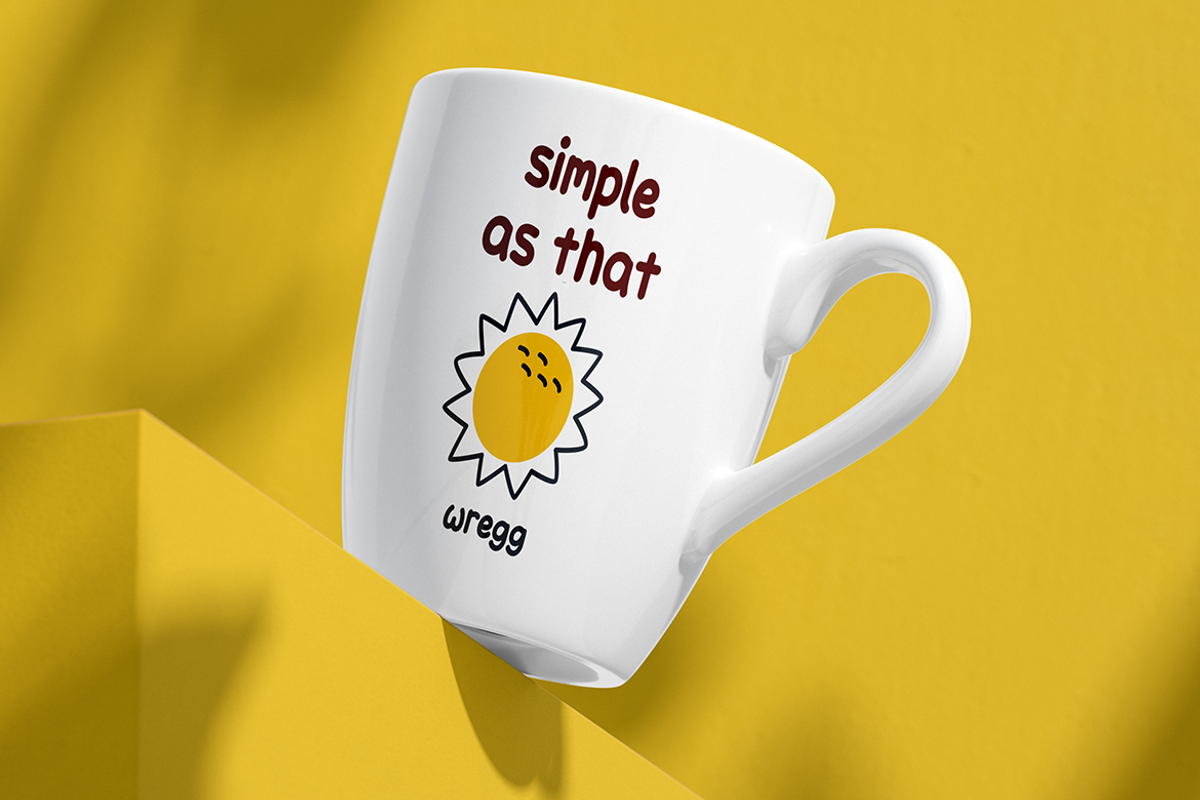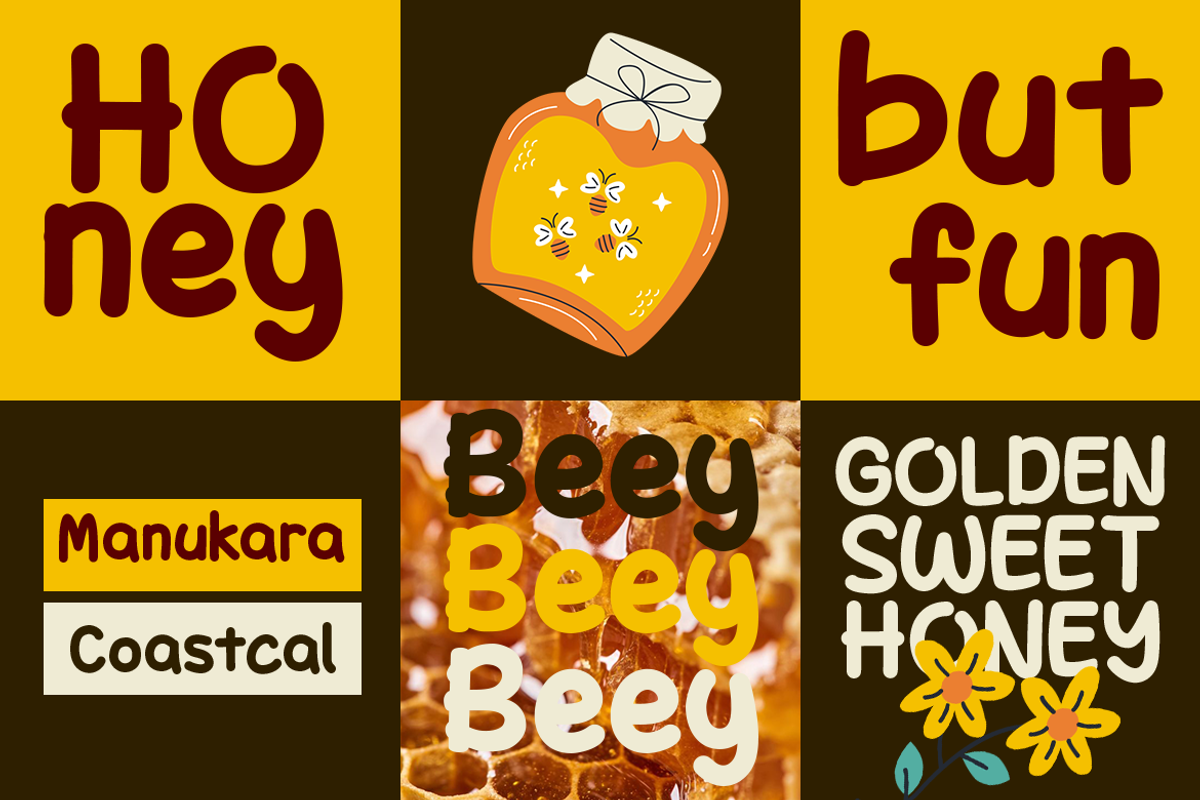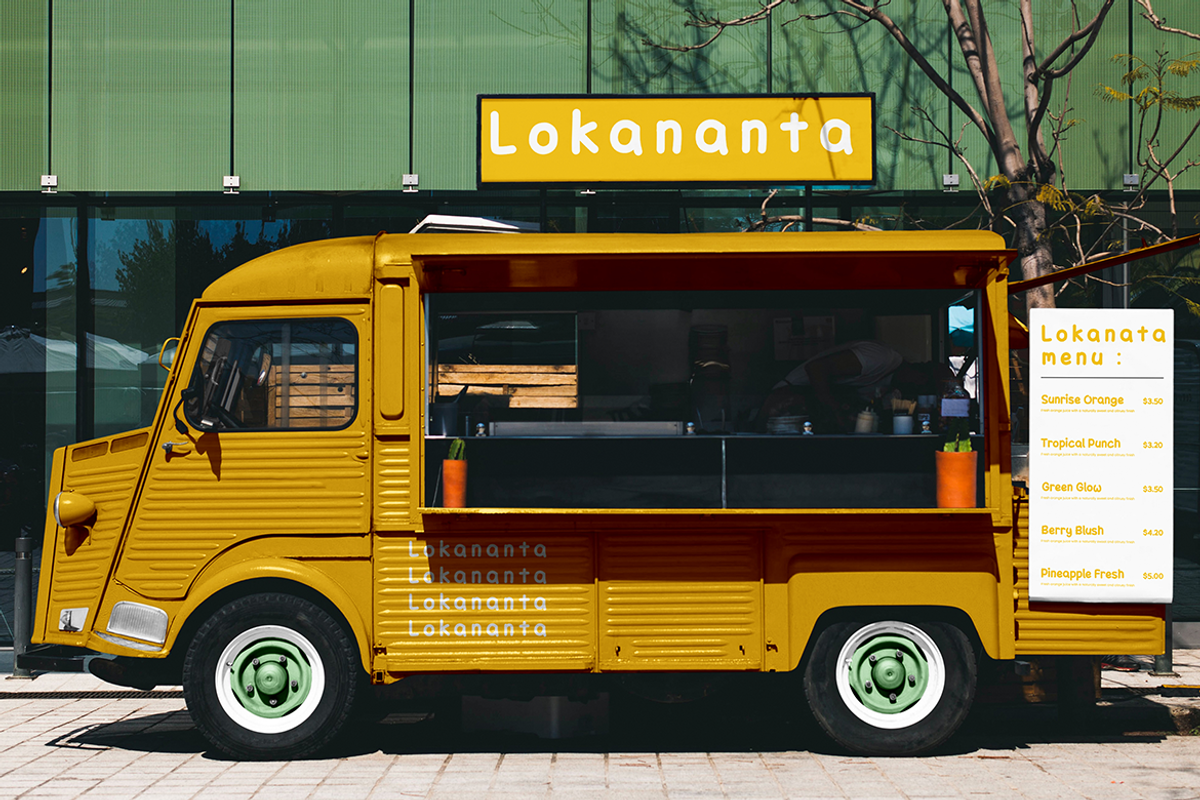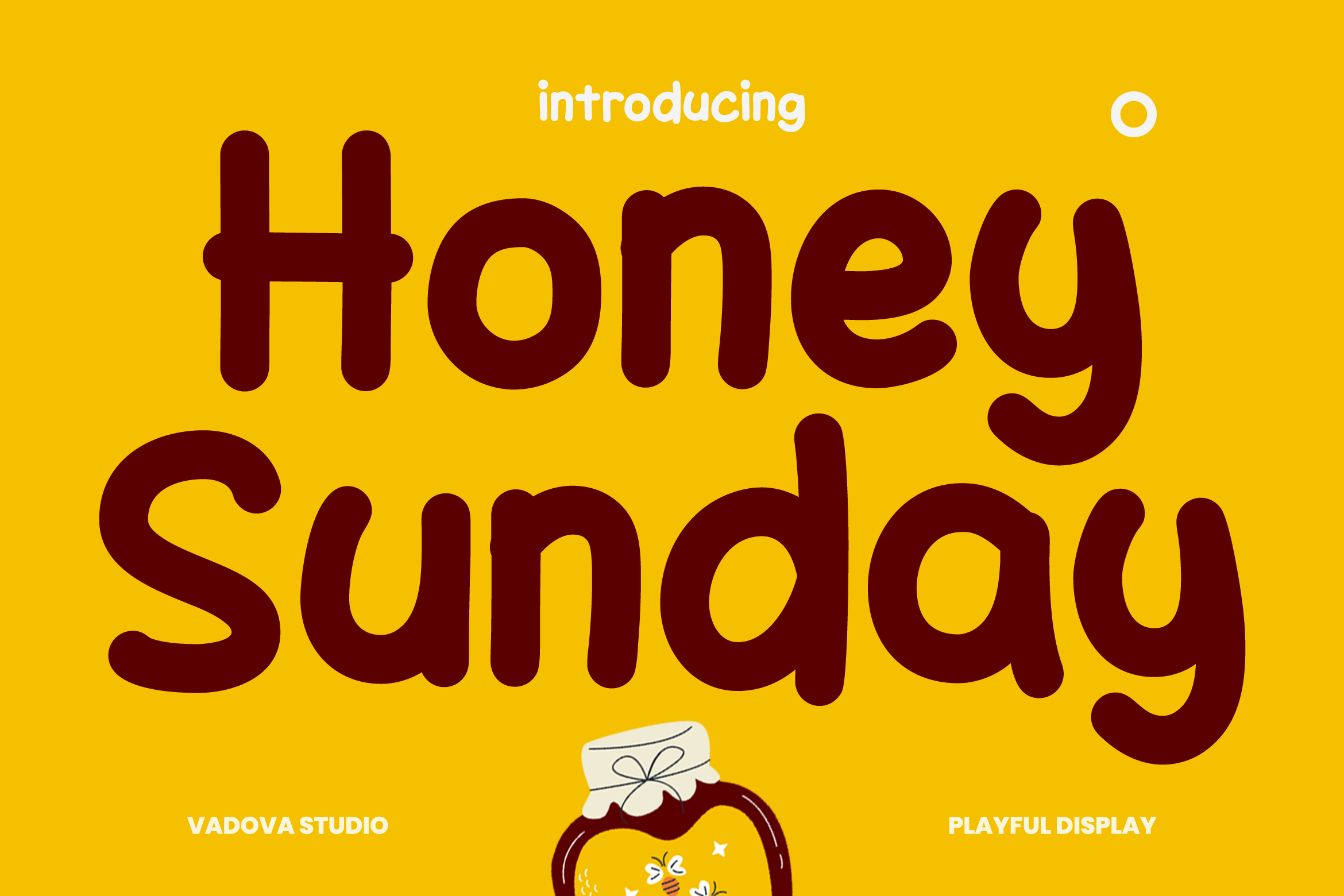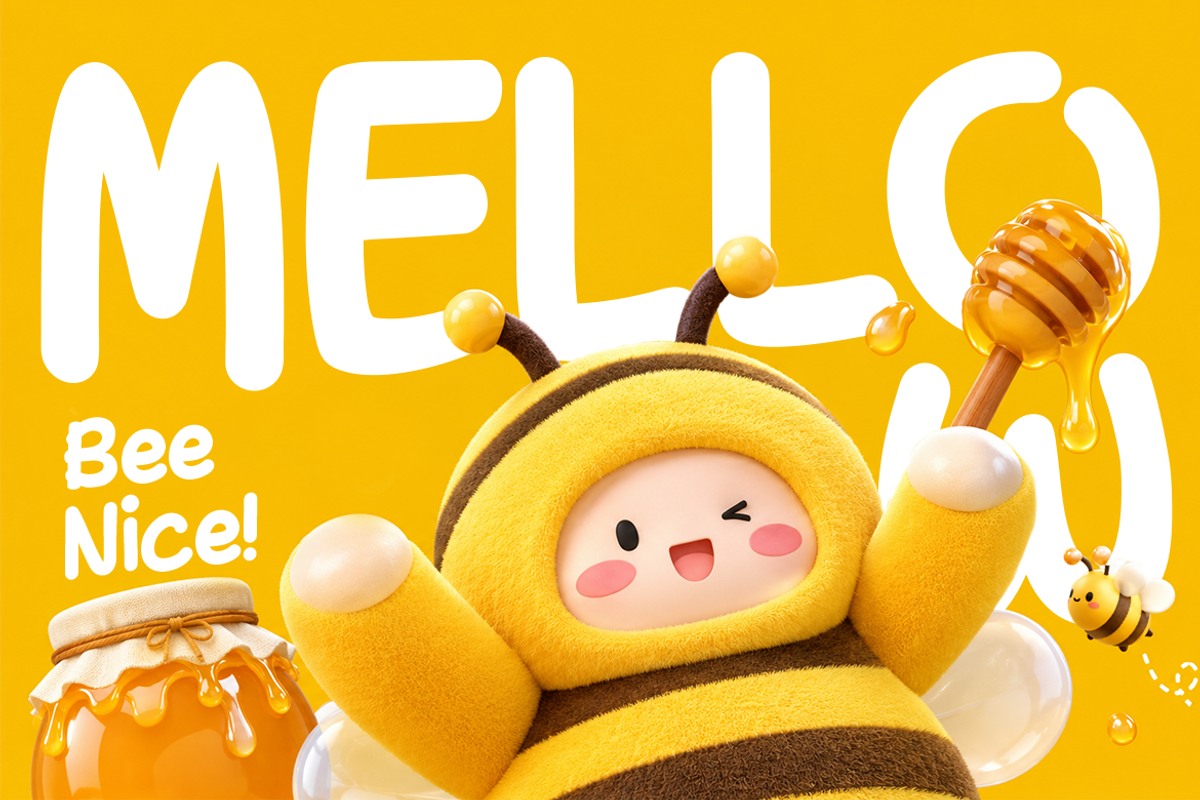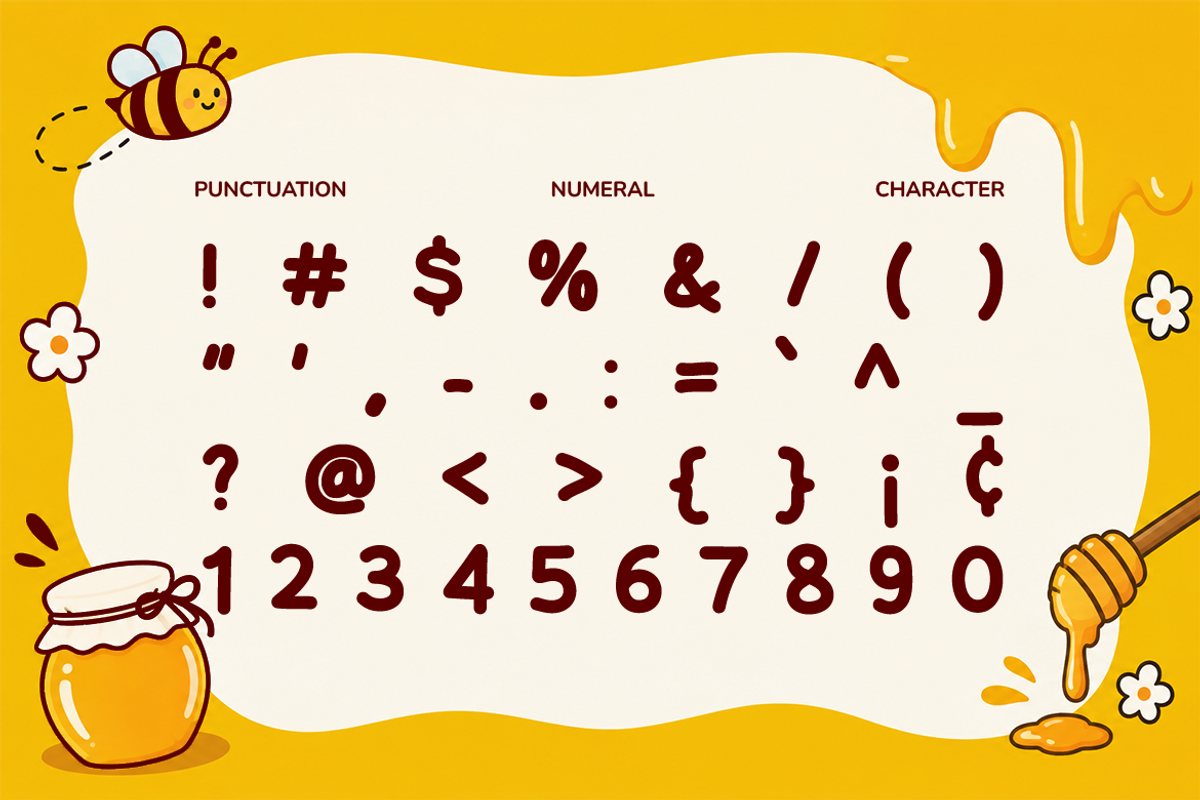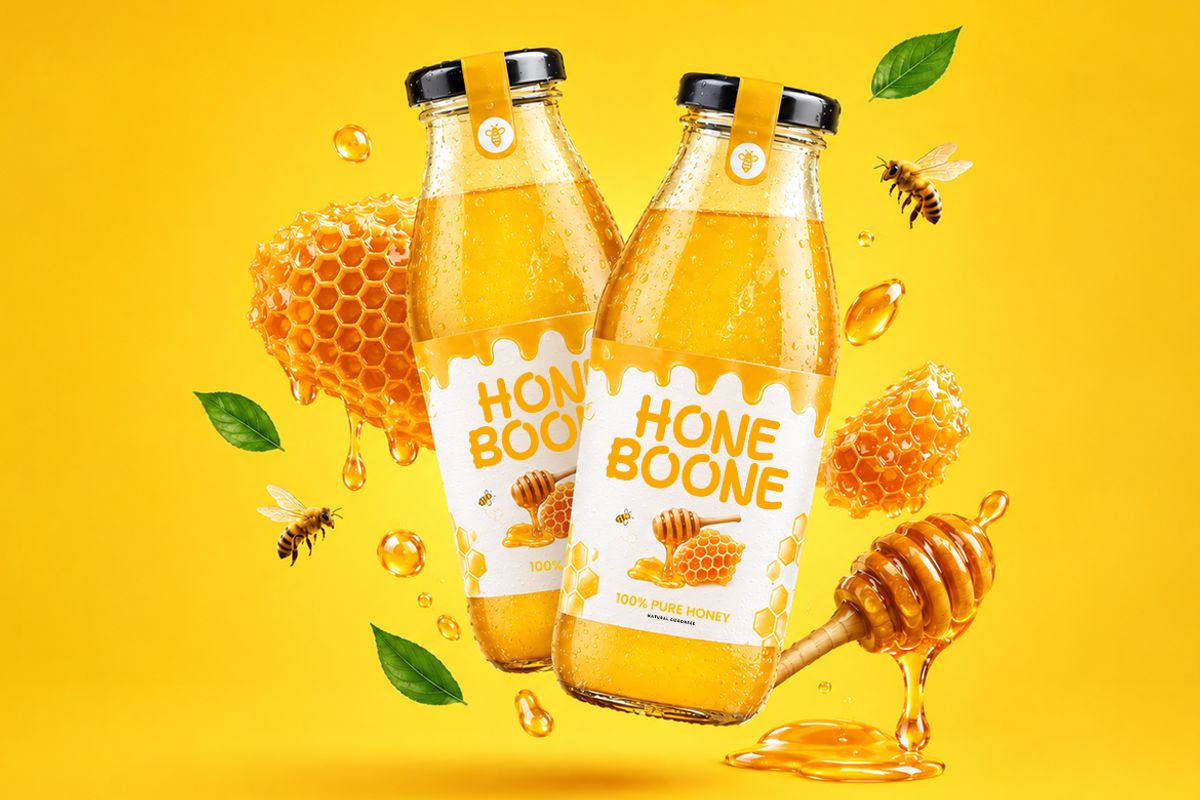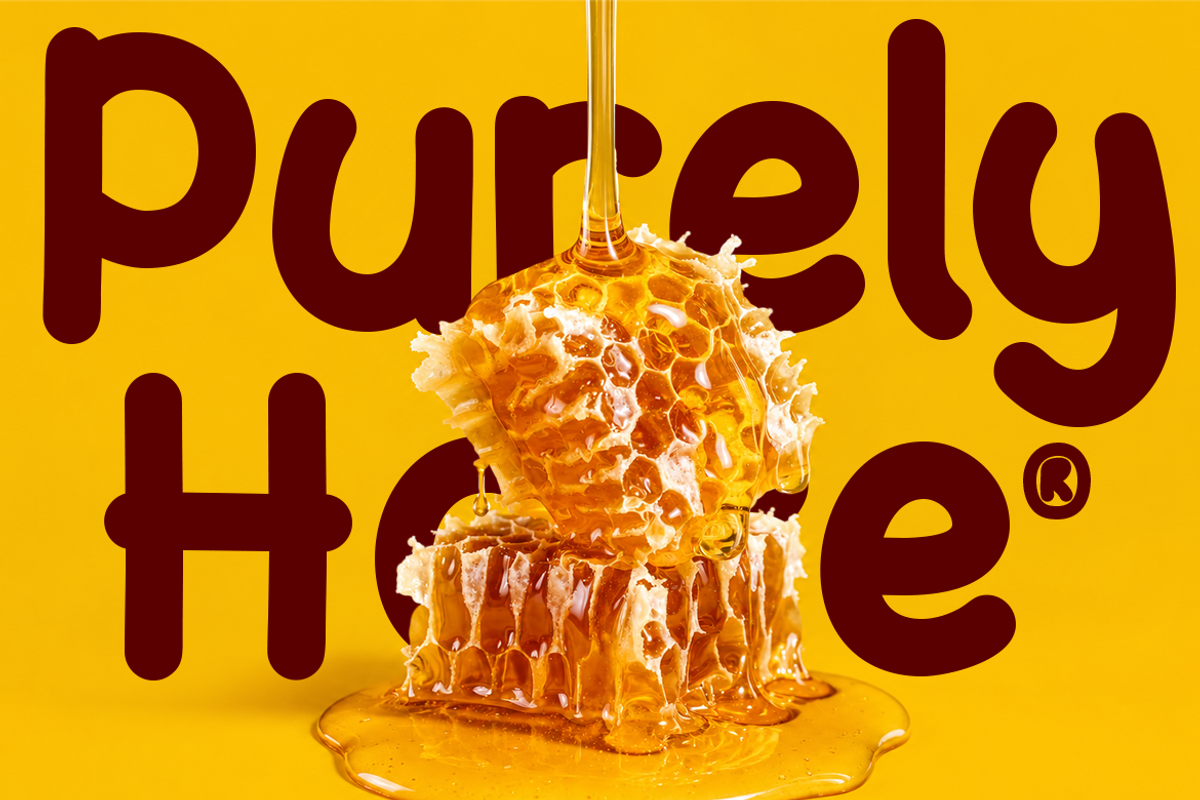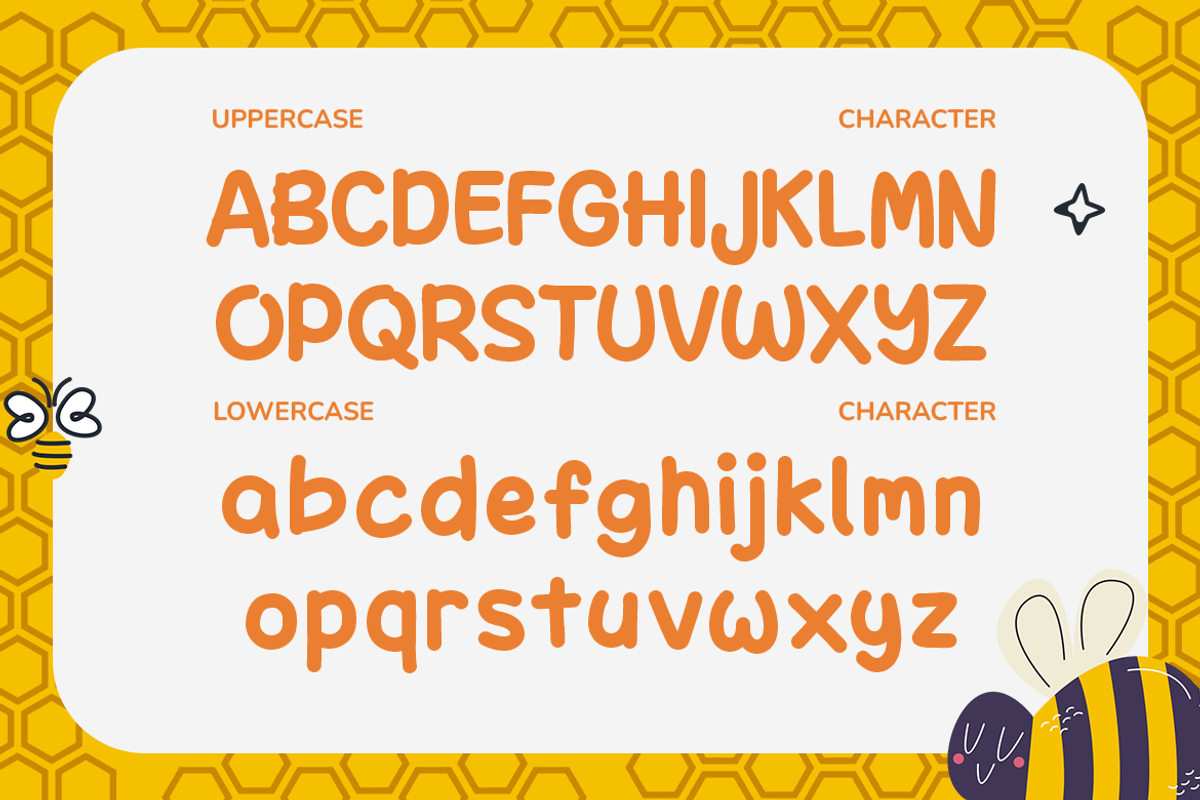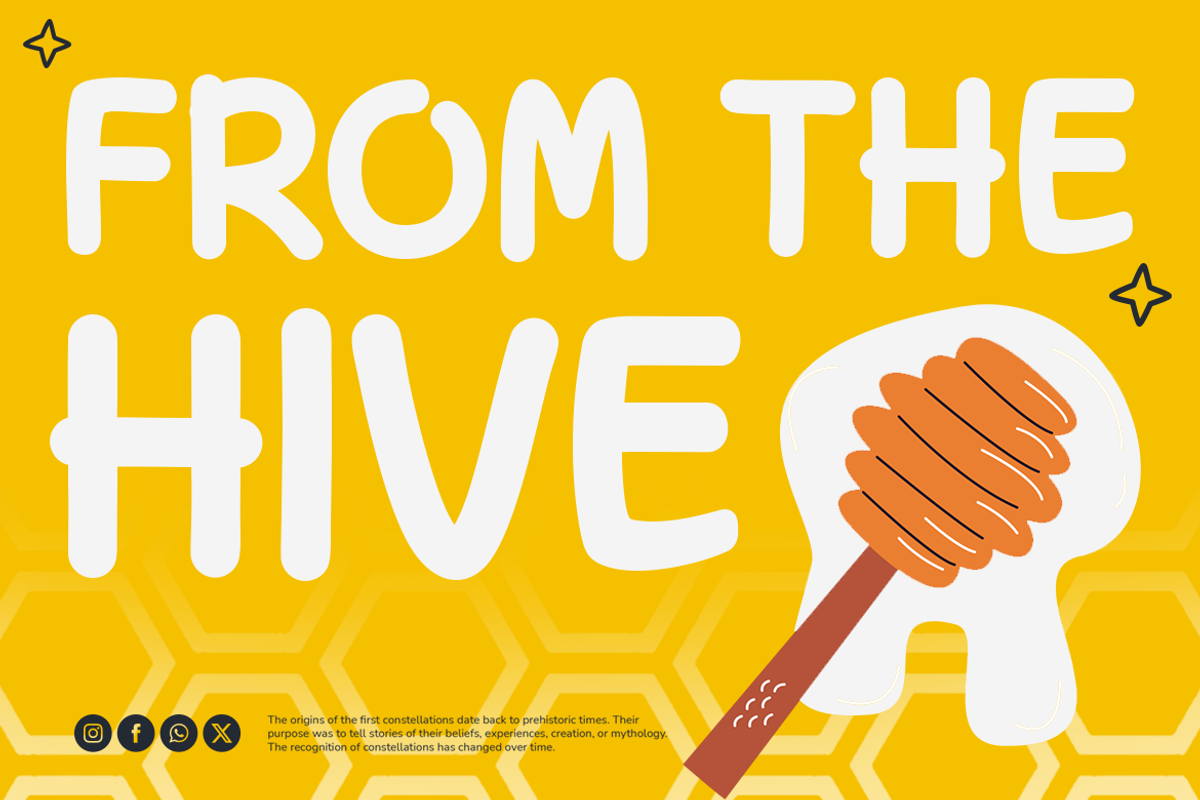
Honey Sunday Playful Display Font
Honey Sunday Playful Display Font is a playful display typeface with soft, rounded letterforms and a hand-drawn character that gives every word a friendly and cheerful personality. The letters are built with thick, smooth strokes, rounded terminals, organic curves, and slightly irregular proportions, creating a casual appearance that feels expressive rather than mechanically geometric. The lowercase characters have a particularly soft and bouncy rhythm, while the uppercase set maintains the same rounded construction with slightly stronger visual impact. The generous curves and simple forms keep the lettering clear while adding a warm, approachable character to headlines and short phrases.
Designed as a personality-driven display font, Honey Sunday works especially well when typography needs to communicate fun, friendliness, creativity, and a casual handmade feeling. It can be used for children's branding, food and beverage packaging, bakery graphics, greeting cards, stickers, posters, invitations, social media artwork, product labels, merchandise, logos, and cheerful promotional designs. Its rounded shapes pair naturally with illustrations, mascots, playful patterns, and colorful layouts, making it useful for projects where the typography should feel approachable and visually engaging.
Soft rounded construction creates a friendly and approachable appearance
Thick strokes give the characters a bold and highly visible display presence
Organic curves create a relaxed hand-drawn feeling
Rounded terminals soften the overall silhouette and reinforce the playful character
Slightly irregular proportions prevent the letters from feeling overly mechanical
Brand identity systems for cheerful, friendly, and approachable products
Children’s brands, toys, and playful educational materials
Bakery, dessert, café, and food packaging with a warm handmade feel
Stickers, greeting cards, invitations, and illustrated stationery
Social media graphics and promotional designs with a fun, colorful personality
Supports numerals, punctuation, and extensive symbol set
Bring a sweet and playful personality to your designs with Honey Sunday